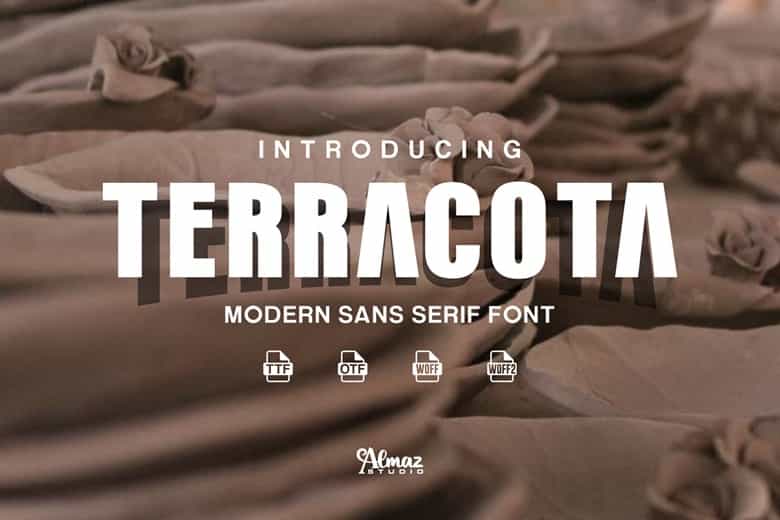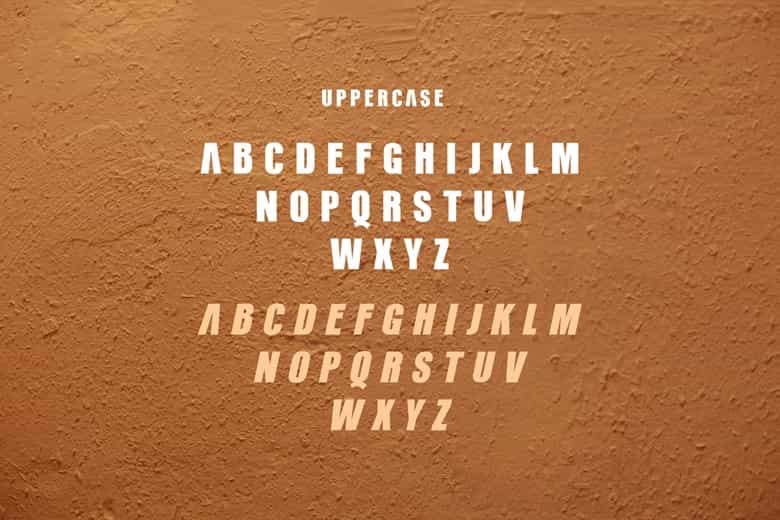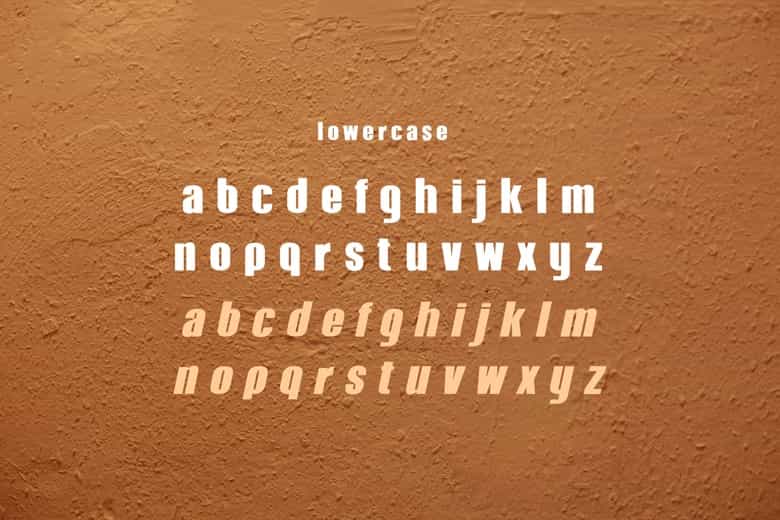
Terracota is a beautiful sans serif font with a good contrast of width. Created by font designer Almaz Studio™. Made from font designer named Almaz Studio™. Terracota font can be described as a font that bears heavy or thick vaporable. It is characterized by having clear and thick lettering with no use of fines lines or details. Because of this font style, it gives a sense of courage since it is mostly used in designing and writing of texts.